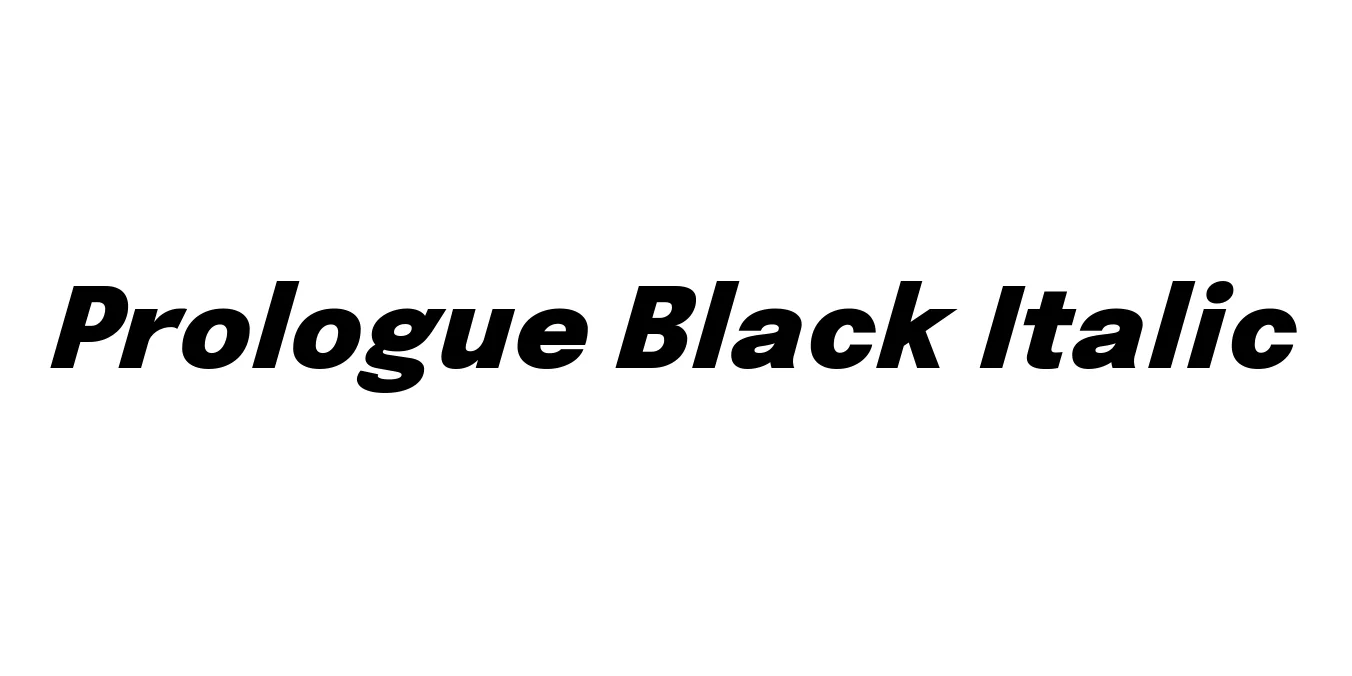
Prologue Black Italic
Designed by Ivan Gladkikh
Prologue Black Italic is a powerhouse of a typeface, blending geometric structure with a dynamic, forward-leaning italic slant. Designed to command attention, this weight is characterized by its heavy strokes and precise curves, making it a standout choice for high-impact typography. It effectively bridges the gap between mechanical efficiency and expressive design, ensuring that it stands out in crowded visual environments.
Throughout its development, the focus was on maintaining legibility at large scales while ensuring a distinct personality. Its open apertures and balanced proportions allow it to thrive in both digital environments and traditional print media, particularly where a sense of speed, strength, and modernity is desired. It is often utilized in high-performance contexts such as sports branding or technology-focused editorial design.
Prologue Black Italic Best Uses
Perfect for grabbing attention in editorial layouts and posters.
Ideal for logos needing a strong, modern, and aggressive aesthetic.
Conveys a sense of speed and high-tech performance for interface design.
Works exceptionally well for large-scale outdoor and digital banners.
Prologue Black Italic Glyphs